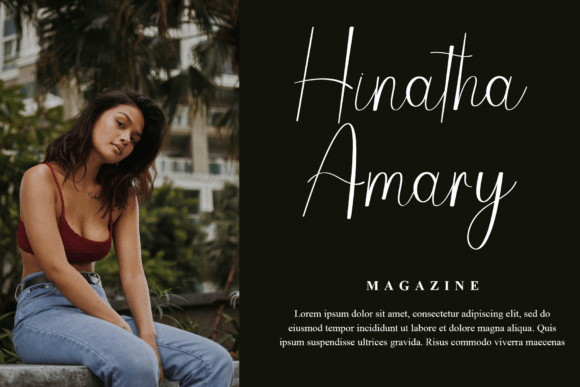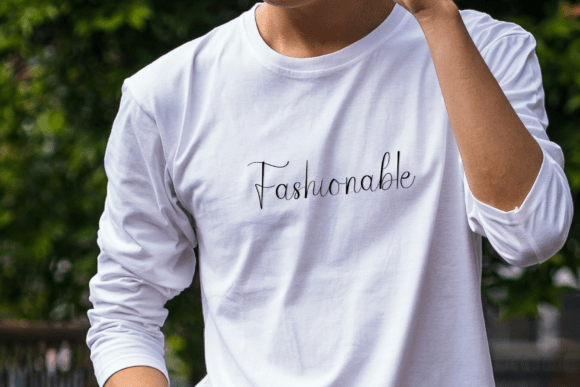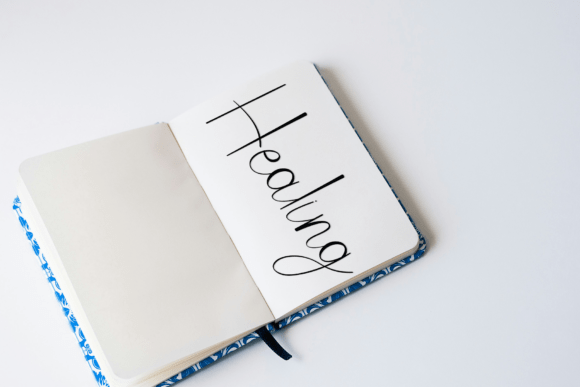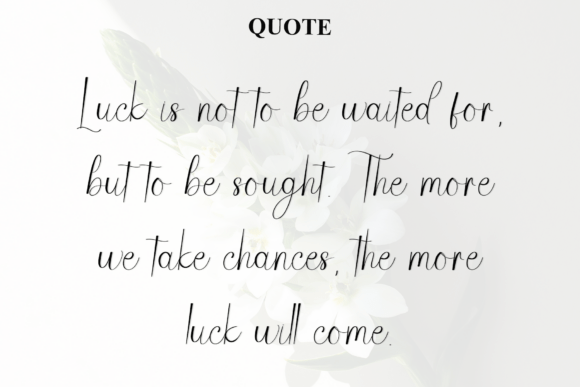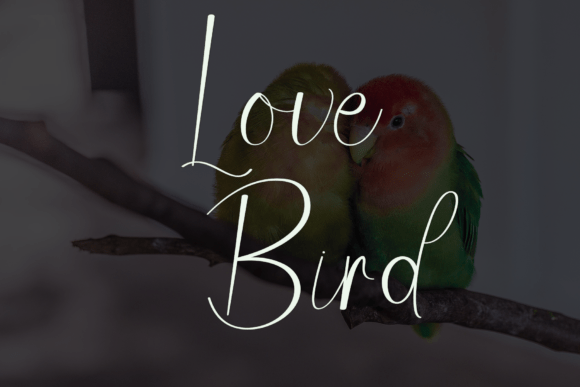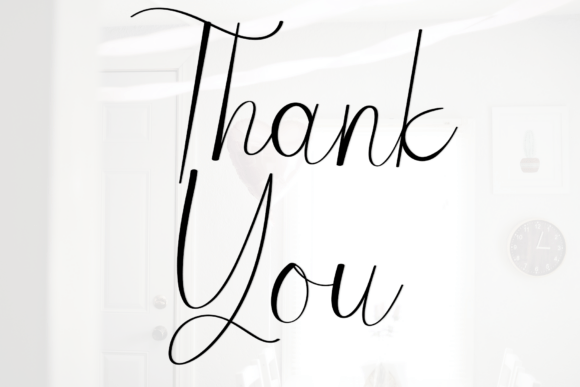
Introducing Delight Valentine Font: The Perfect Choice for Designers and Crafters
Are you looking for a font that can add a personal touch to your designs? Do you want to create invitations, social media graphics, or personal projects that exude warmth and friendliness? Look no further than Delight Valentine Font, a casual and creative font that’s perfect for designers and crafters alike.
The Characteristics of Delight Valentine Font
Delight Valentine Font is a hand-drawn font that features round, playful strokes that create a relaxed and approachable feel. Its charming aesthetic adds a fun and unique touch to any design, making it perfect for projects that require a personal and friendly tone. Whether you’re creating invitations, social media graphics, or personal projects, Delight Valentine Font is sure to make your designs stand out.
What Makes Delight Valentine Font So Versatile?
Perfect for Personal Projects and Designs
Delight Valentine Font is perfect for designers and crafters who want to add a personal touch to their projects. Whether you’re creating handmade cards, invitations, or social media graphics, this font is sure to bring a smile to the recipient’s face. Its friendly and approachable feel makes it perfect for projects that require a personal and human touch.
Why Designers and Crafters Love Delight Valentine Font
So why do designers and crafters love Delight Valentine Font? For one, its unique and charming aesthetic adds a fun and creative touch to any design. Additionally, its versatility and compatibility with a range of applications make it easy to use in a variety of contexts. Finally, its friendly and approachable feel makes it perfect for projects that require a personal and human touch.
Tips for Using Delight Valentine Font
If you’re new to using Delight Valentine Font, here are a few tips to get you started:
- Use it for personal projects, such as handmade cards and invitations
- Incorporate it into your social media graphics for a friendly and approachable tone
- Pair it with other fonts for a unique and creative look
In conclusion, Delight Valentine Font is a casual and creative font that’s perfect for designers and crafters who want to add a personal touch to their projects. Its charming, hand-drawn aesthetic and friendly and approachable feel make it perfect for a range of applications, from personal projects to social media graphics. With its versatility and compatibility with a range of applications, Delight Valentine Font is sure to become a staple in your design toolkit.